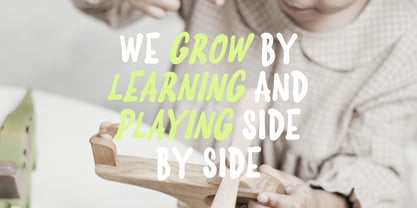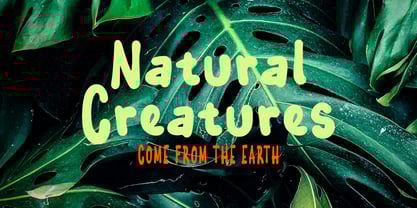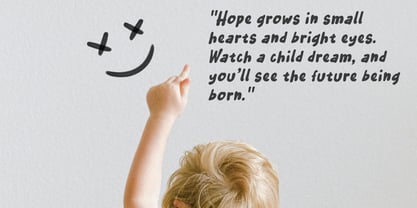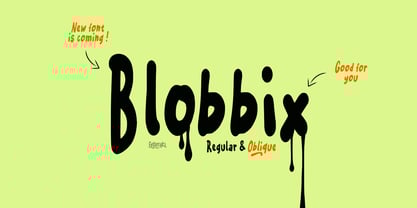
Blobbix
The Blobbix Font Family was designed by Wahyu Eka Prasetya, Dian Angga Marytama and published by Letterytz CalliType. Blobbix contains 2 styles and family package options. More about this family
Blobbix – Drippy Bold Display Font
Say hello to Blobbix, a bold, bouncy, and juicy display font that's full of playful character and melting personality. Designed for creatives who aren’t afraid to stand out, Blobbix brings fun and fluid energy to your projects—whether you're designing posters, packaging, branding, or eye-catching social media graphics.
Blobbix comes in Regular and Oblique styles, and includes stylistic alternates and decorative swashes to amp up the visual impact. Want to add an ink-drip effect? You can! Just type an underscore (_) and replace it with your desired alternate to instantly switch things up and bring your text to life.
Features:
• Uppercase & Lowercase Letters
• Numerals & Punctuation
• Alternates & Stylistic Sets
• Swashes & Ink Melt Decorations (use _ to access and swap)
• Multilingual Support
• Perfect for Halloween designs, bold posters, edgy branding, or quirky merch!
Let Blobbix drip, splash, and melt across your canvas—this font is made for making noise in the most stylish way.